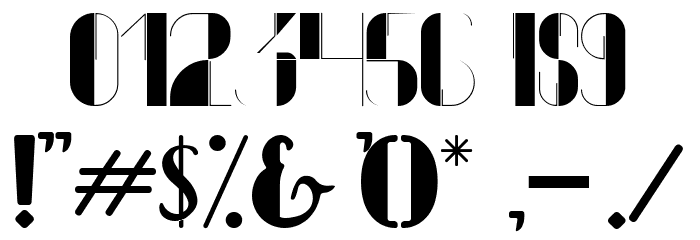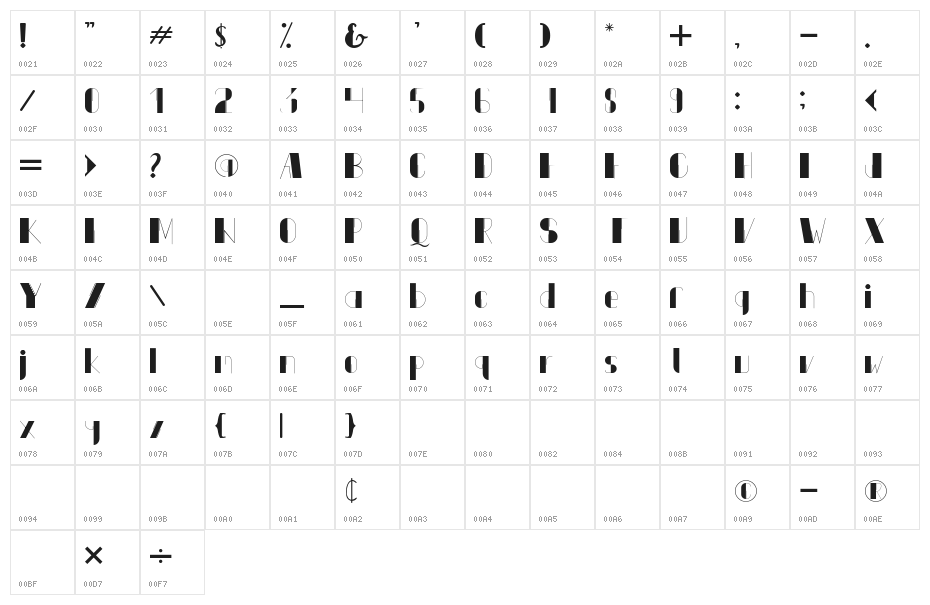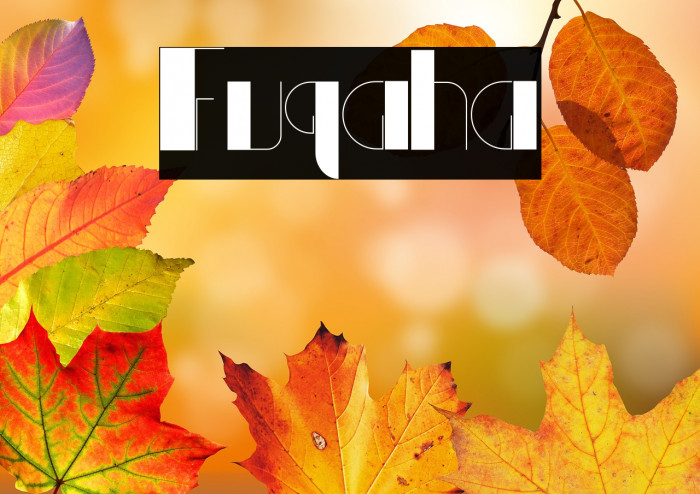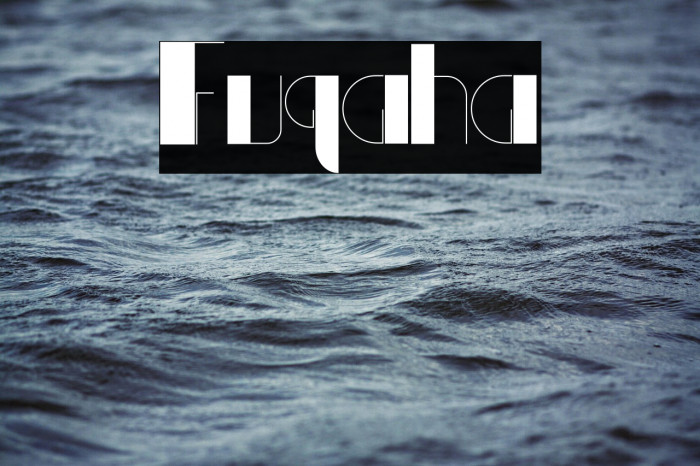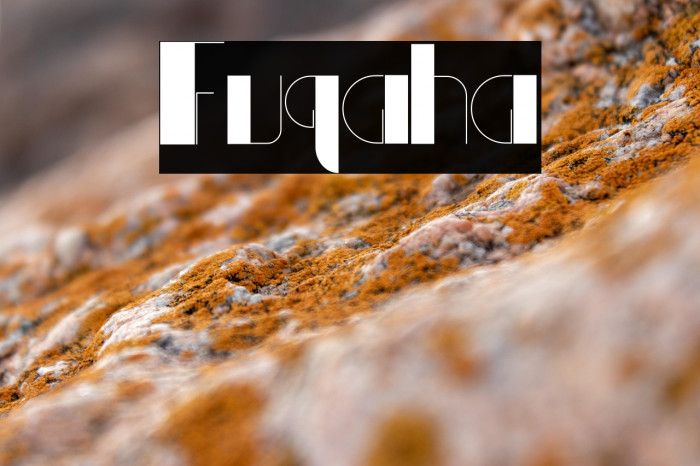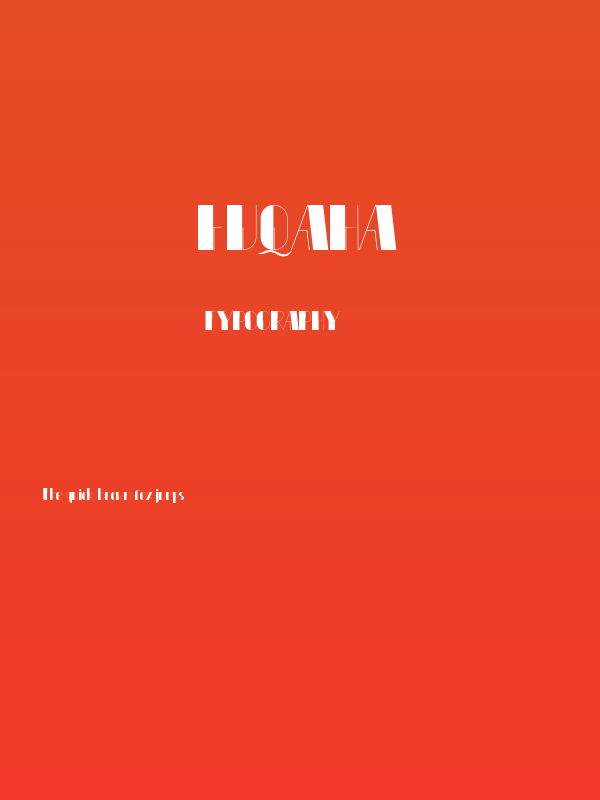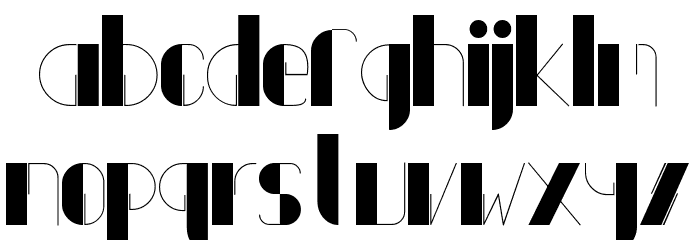
Fuqaha Font
Fuqaha Description
This font features a unique blend of modern and decorative styles, characterized by its high contrast between thick and thin strokes. The uppercase letters are bold and striking, with a geometric influence that gives them a contemporary feel. The lowercase letters maintain this modern aesthetic, with a playful yet sophisticated look. The numerals are consistent with the overall style, offering a bold presence. Special characters are creatively designed, adding to the font's decorative appeal. This font's distinct style makes it ideal for eye-catching designs.
Overall StyleModern, Decorative
Proposed ProjectsIdeal for branding, poster design, and any project requiring a modern, eye-catching typeface.